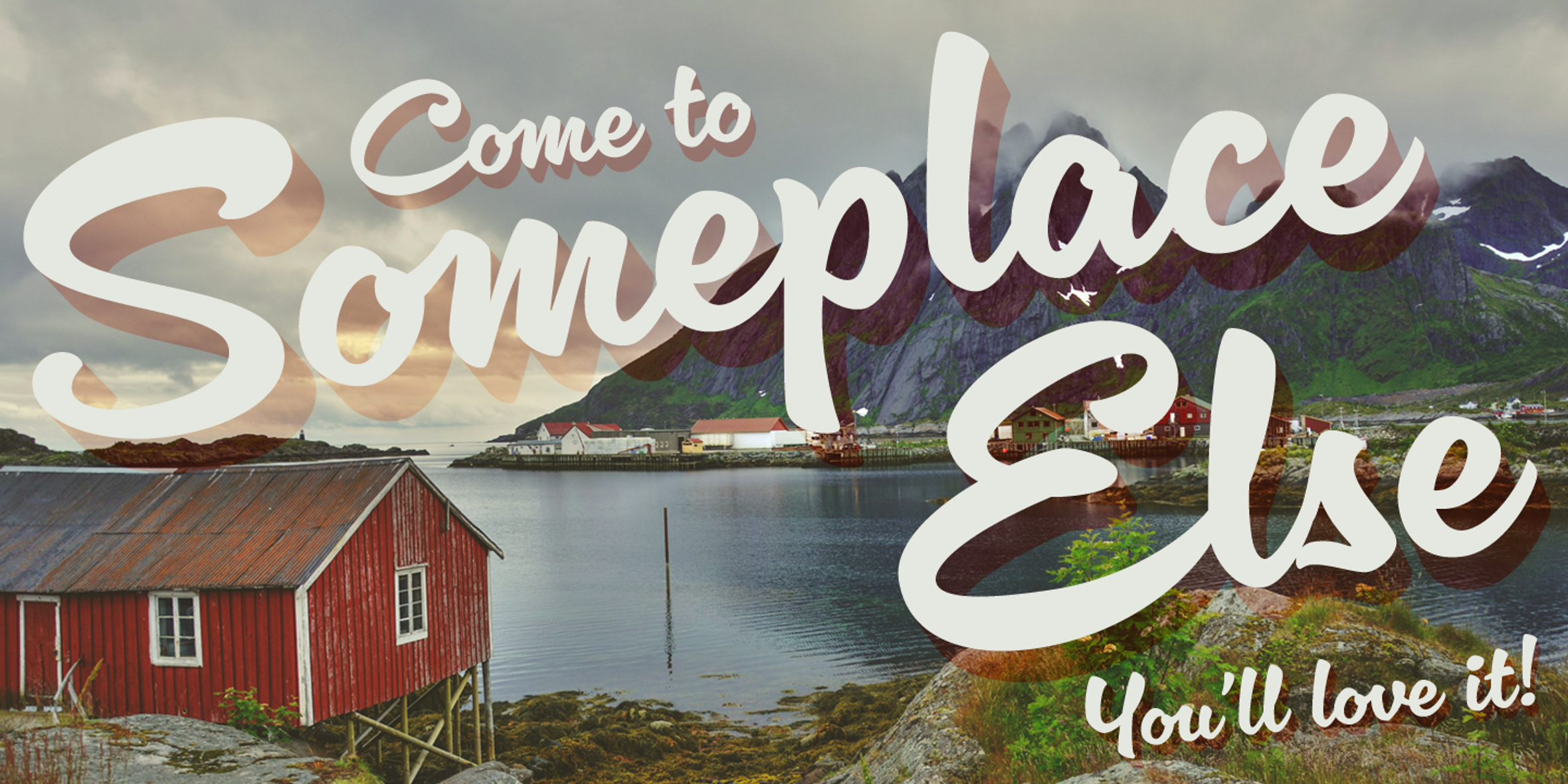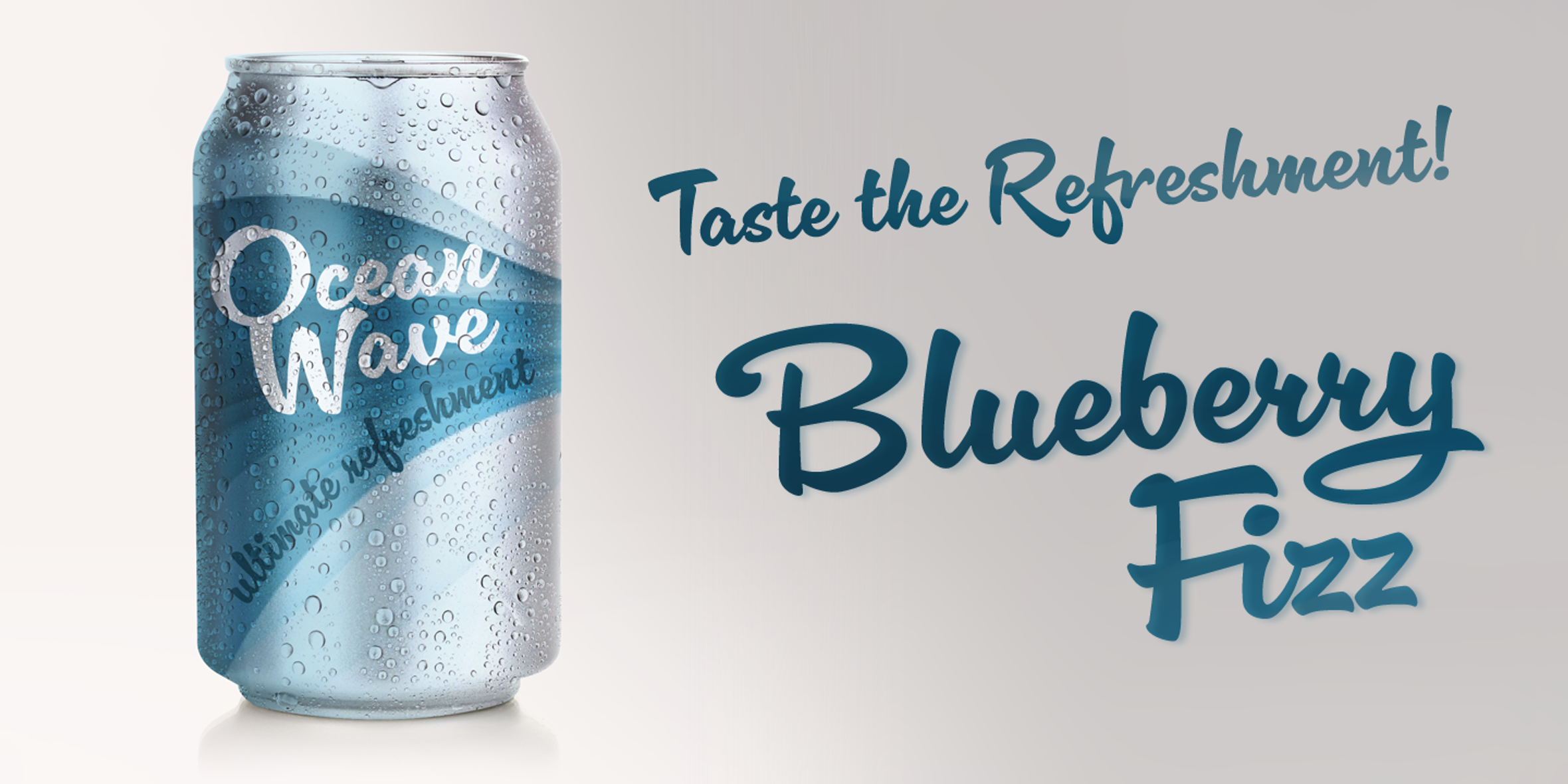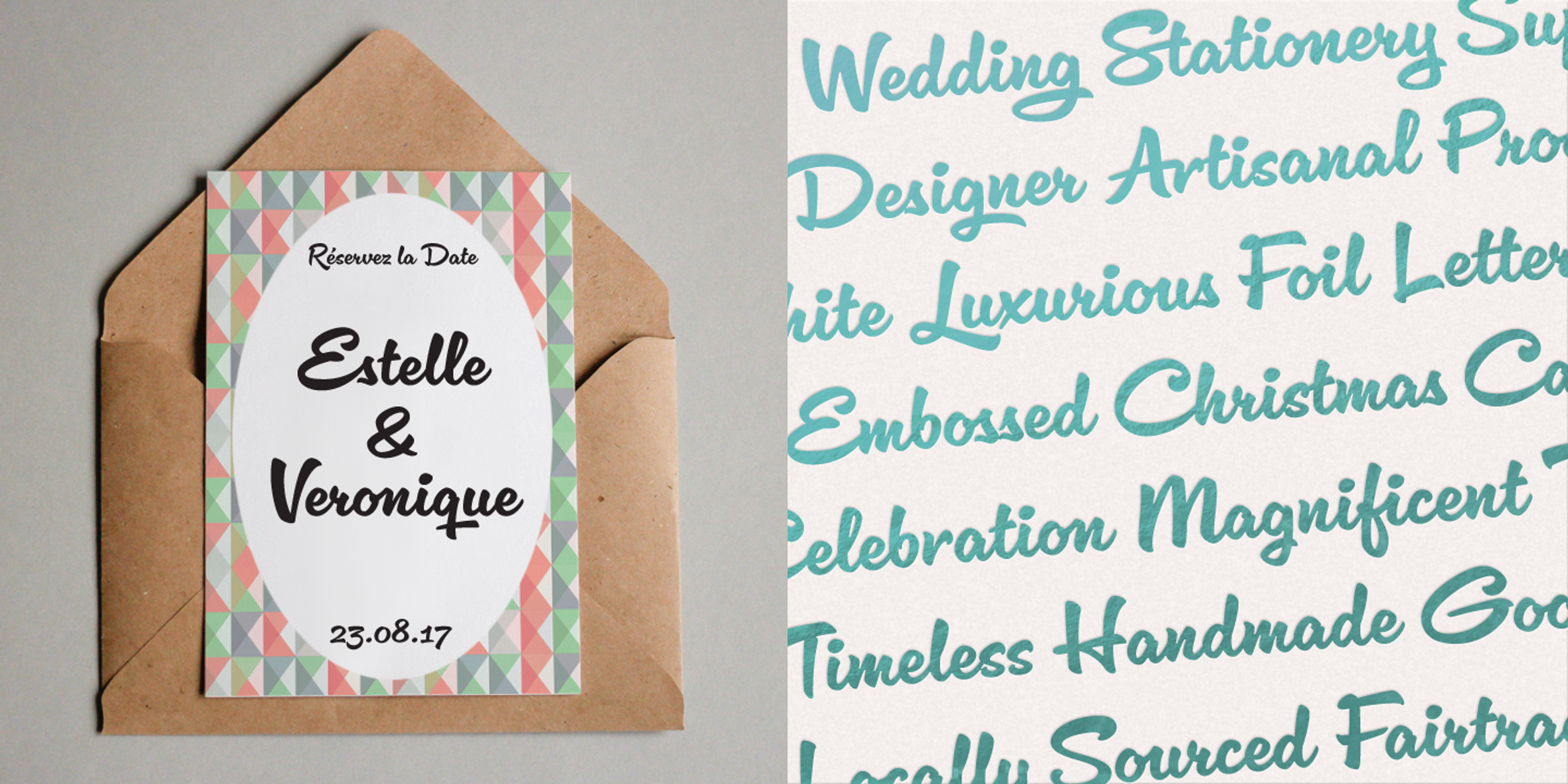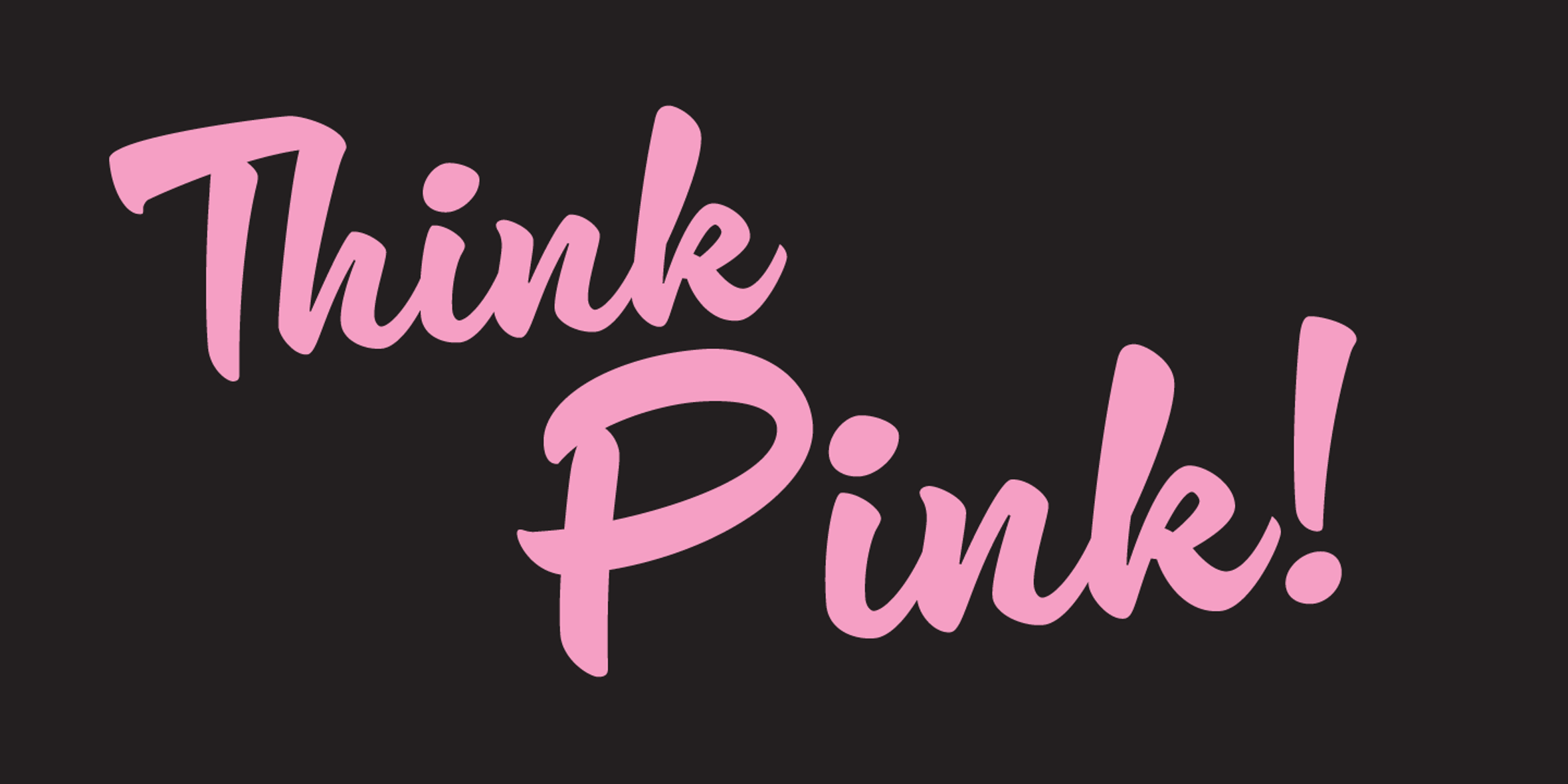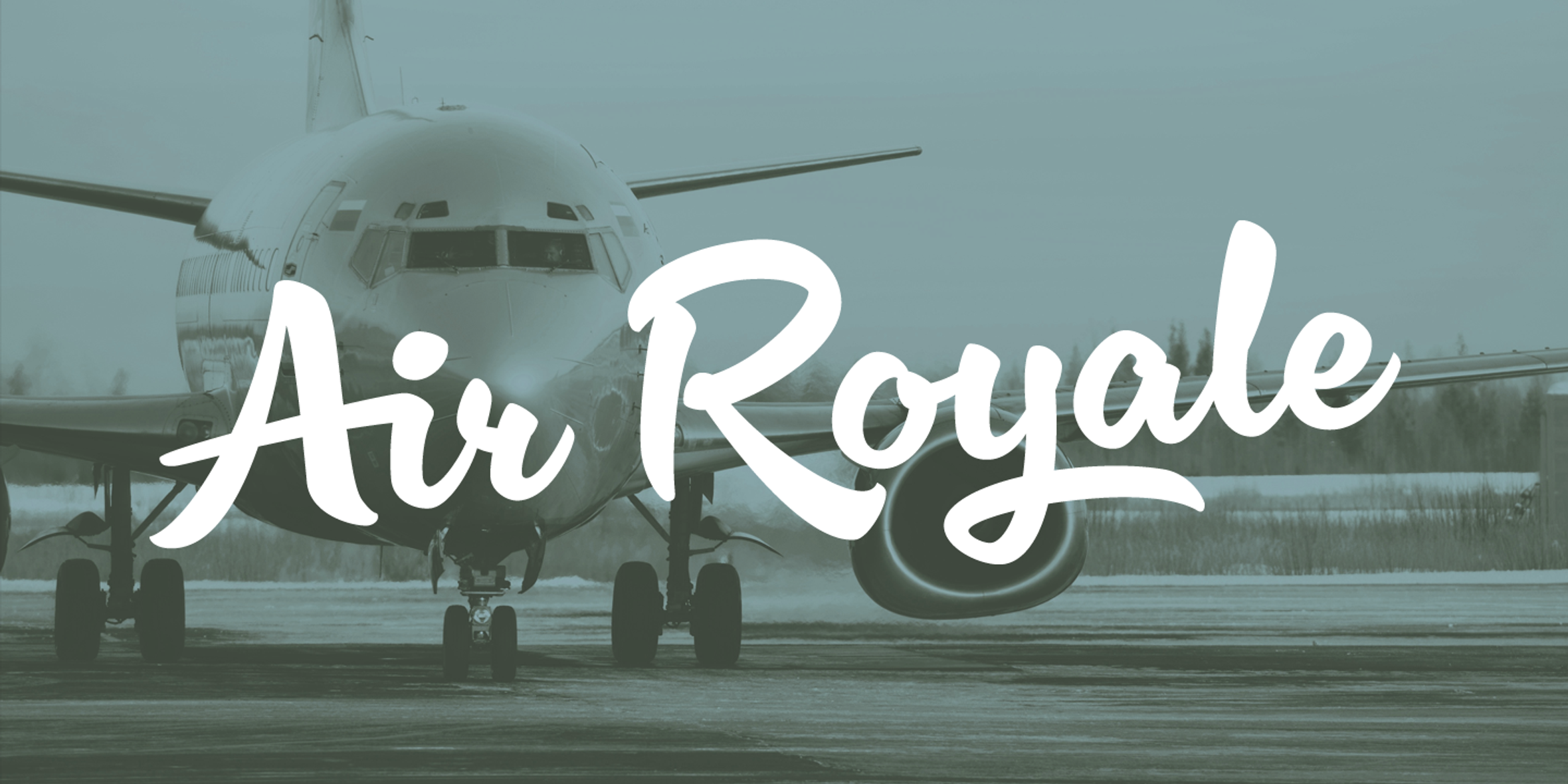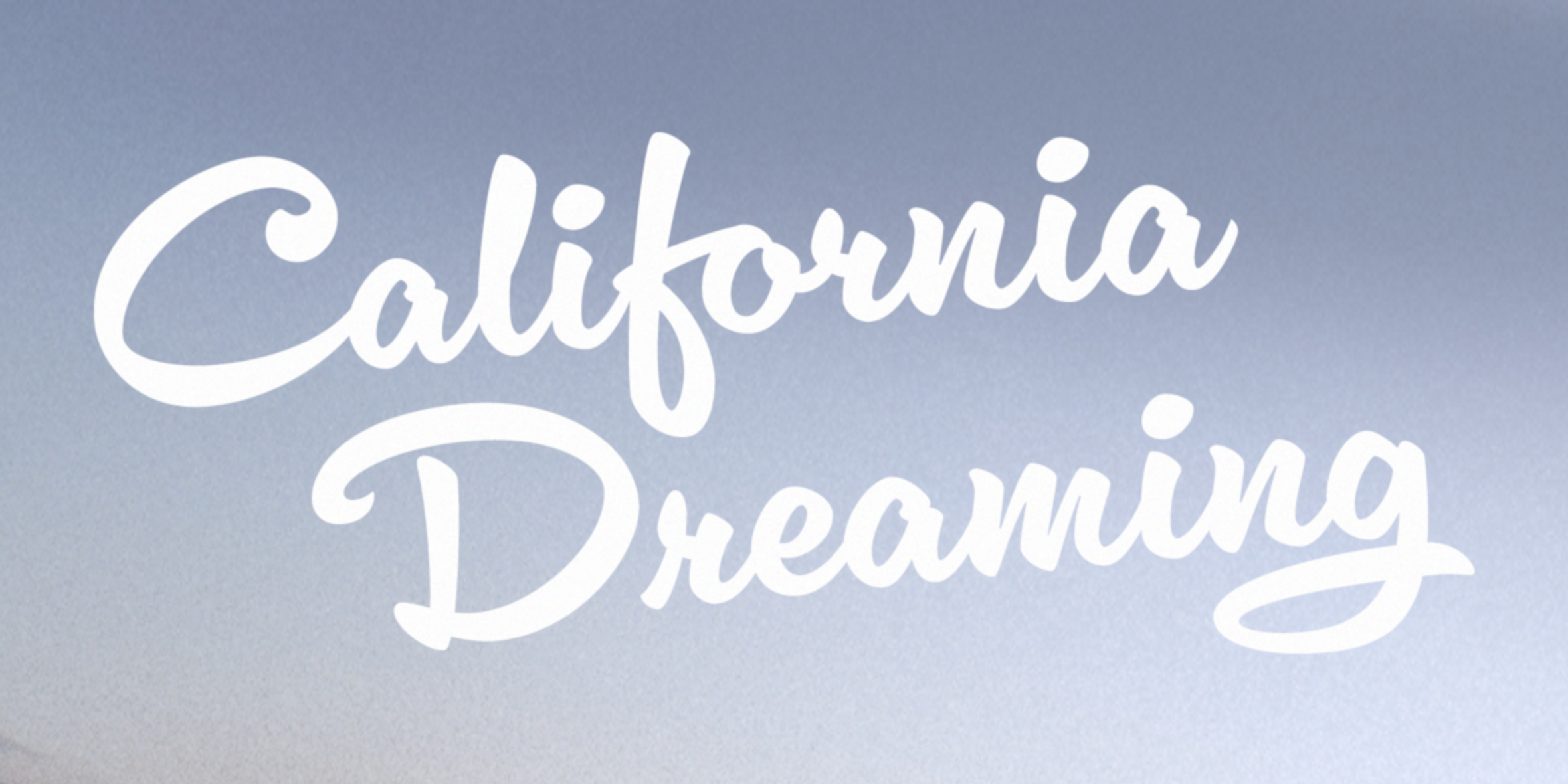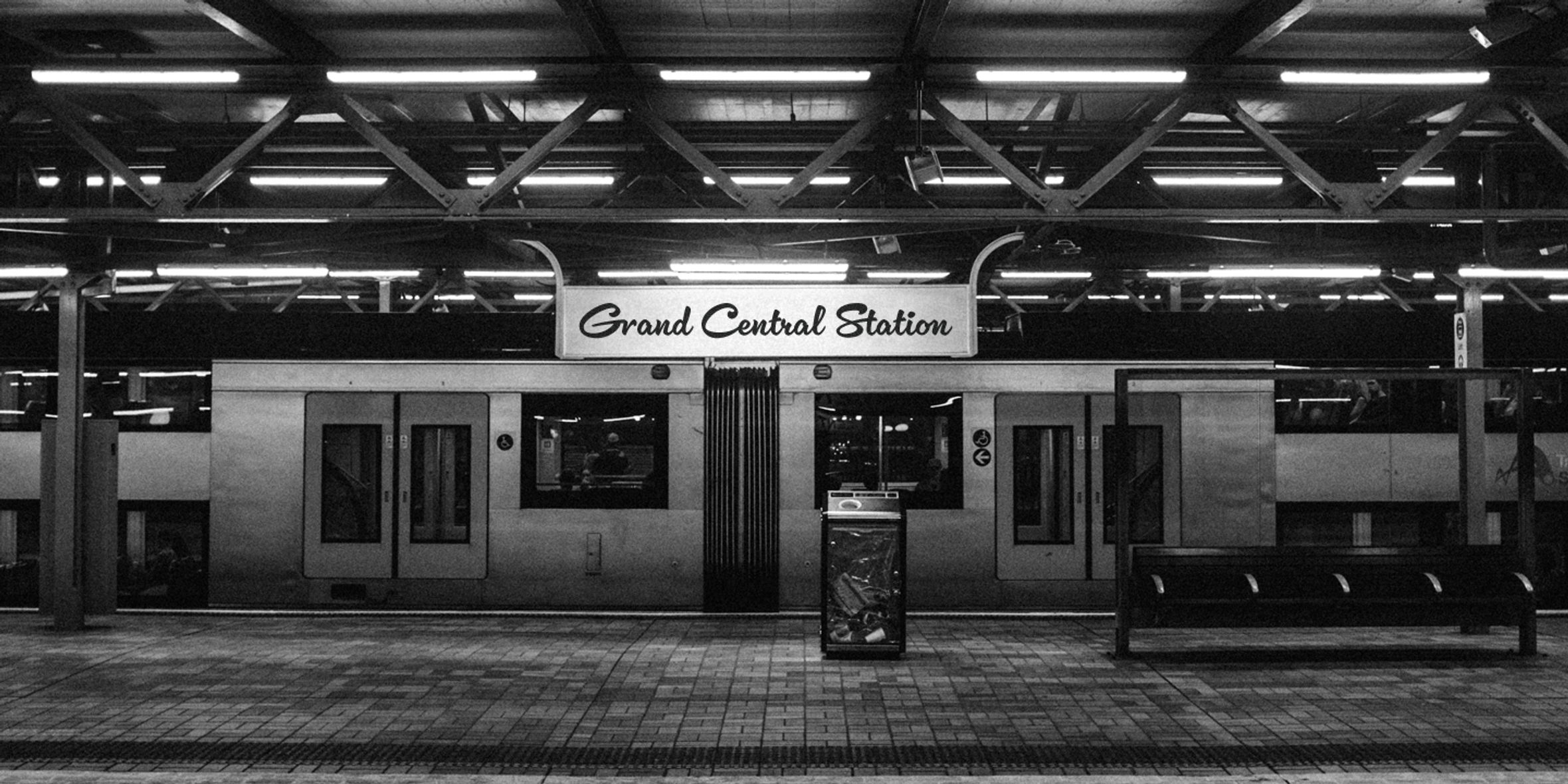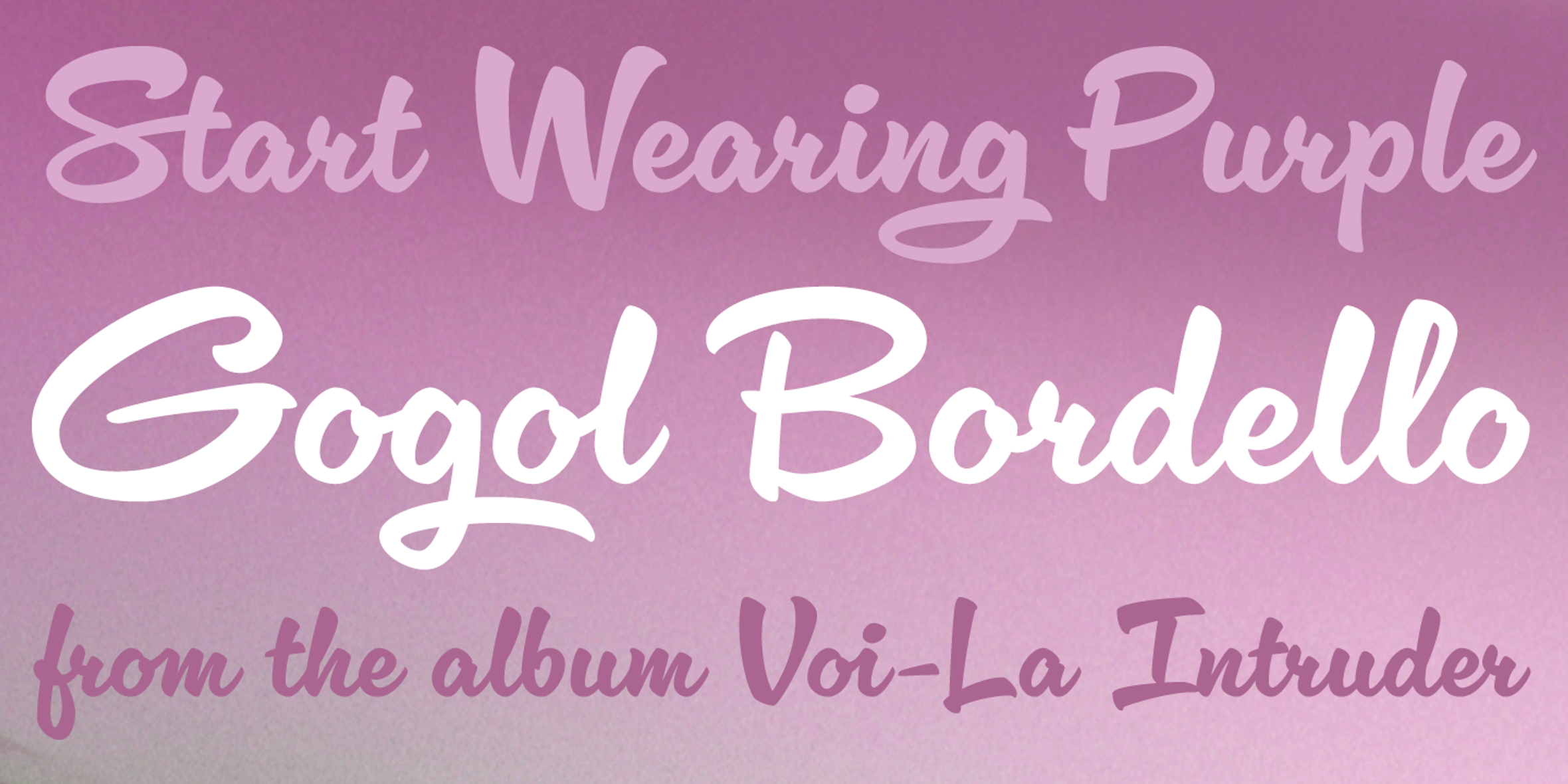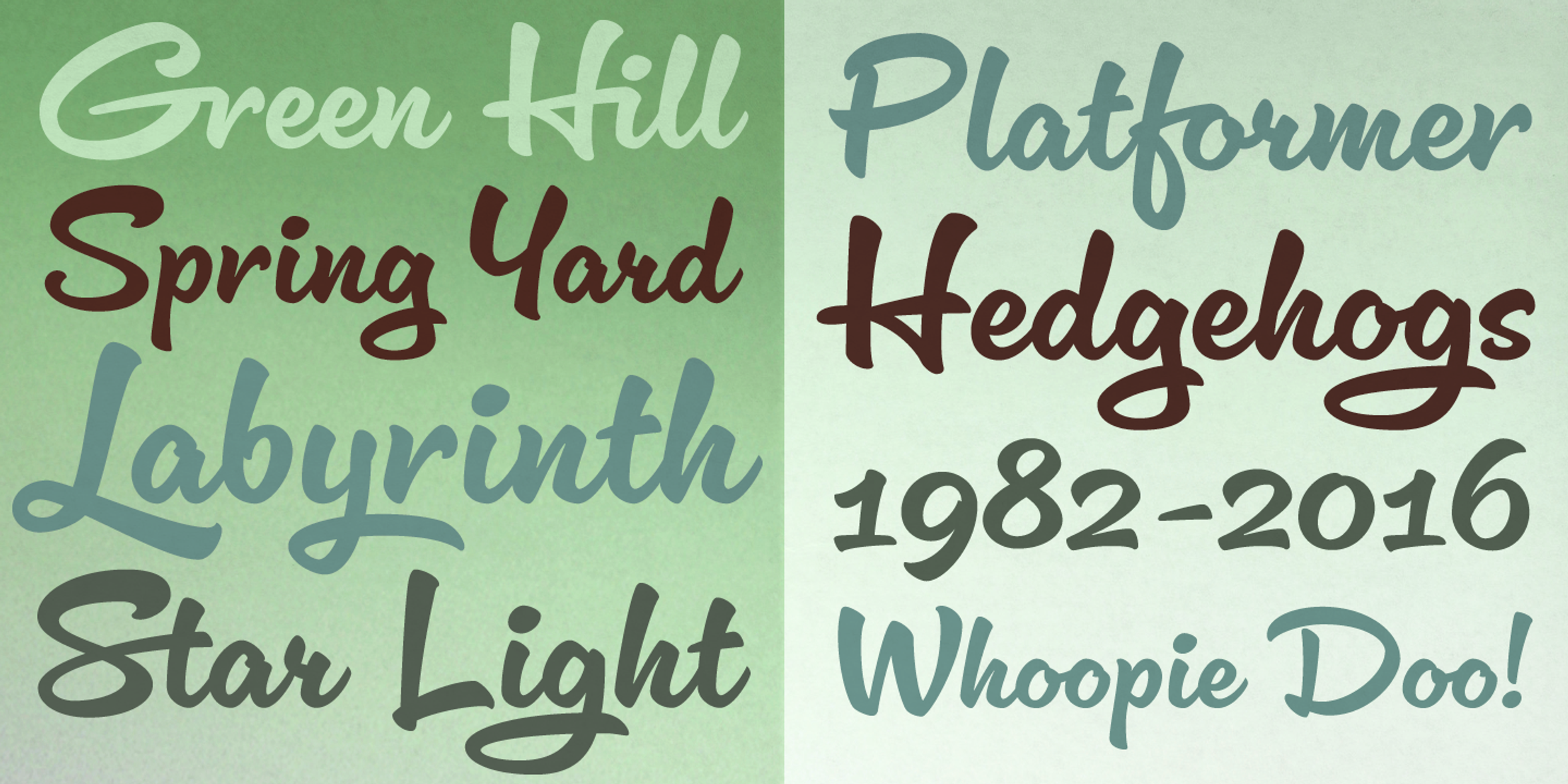
Cinema Script Fonts
Cinema Script
The early Twentieth Century was a golden age for cinema and the artists who lettered the iconic title sequences. Cinema Script is a versatile brush-style design inspired by this lettering style. Yet, it has departed from the source material to be less retro and more in tune with the needs of designers today. It seems familiar, with a similar vibe to other brush fonts but without the staid ubiquity. Cinema Script has endless uses! The big screen, packaging, t-shirts, blogs, stationery, and more!
- Common Ligatures
- Discretionary Ligatures
- Old Style Numerals
- Ordinal Numerals
- Swashes